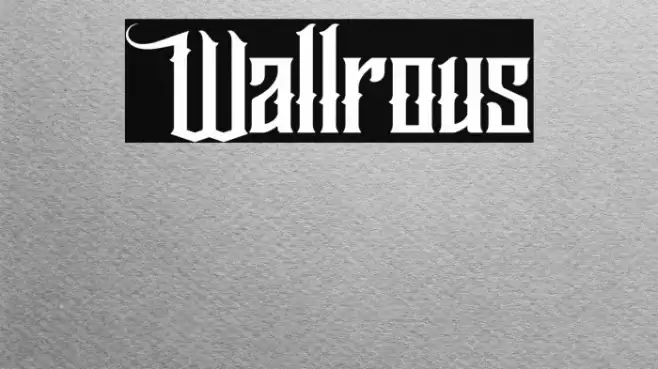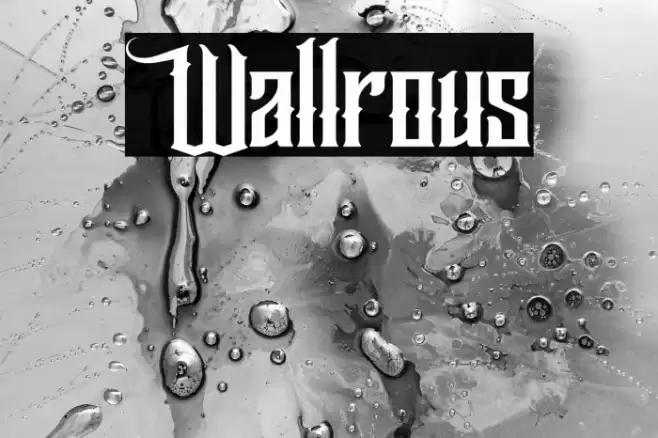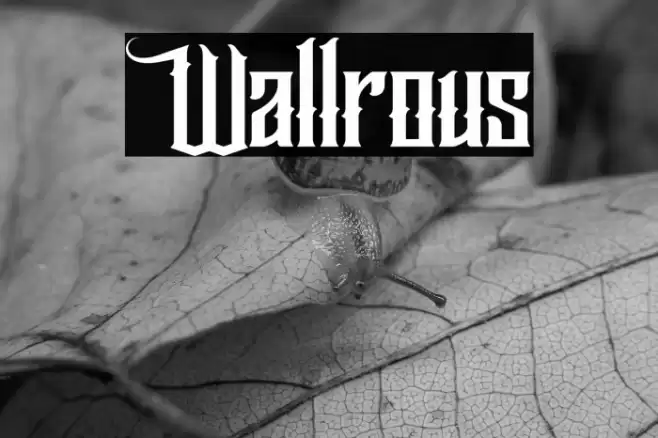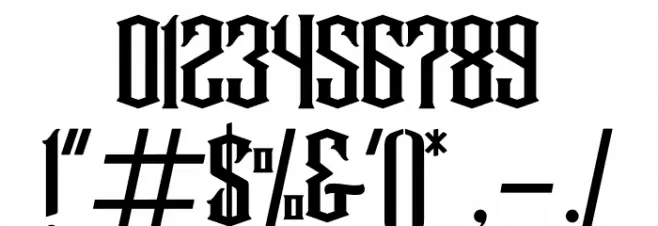
Wallrous Font
Wallrous Description
This font features a bold and dramatic style reminiscent of traditional Blackletter typefaces. The characters are characterized by sharp, angular lines and intricate detailing, giving it a gothic and medieval appearance. The uppercase letters have a distinctive flair with extended strokes, while the lowercase letters maintain a consistent weight and structure. The numerals and special characters follow the same ornate design, making the font cohesive and visually striking. Its bold presence and historical aesthetic make it suitable for projects that require a touch of elegance and tradition.
A bold, gothic-style Blackletter font with intricate detailing from Uncategorized fonts.
- Proposed Projects: Ideal for use in branding, posters, book covers, and any design that seeks a historical or gothic theme.
- Overall Style: Gothic, Medieval, Decorative